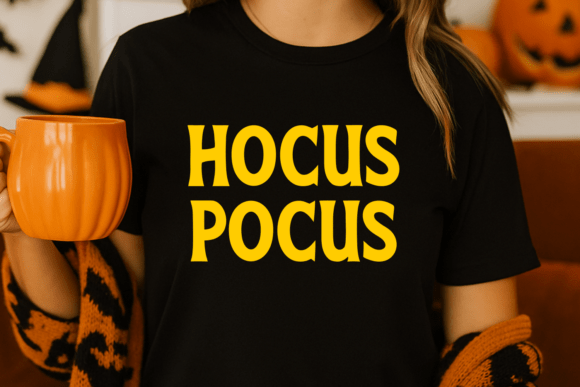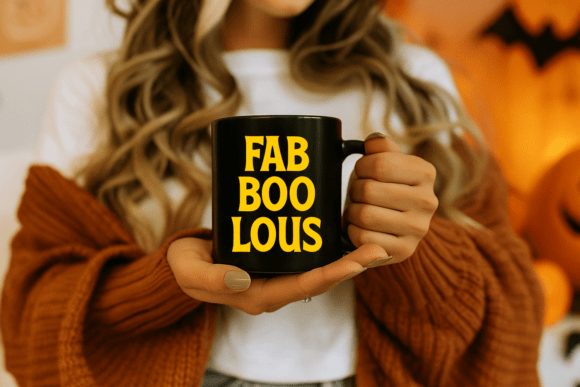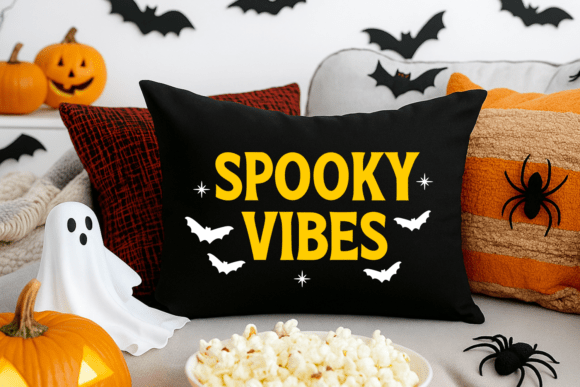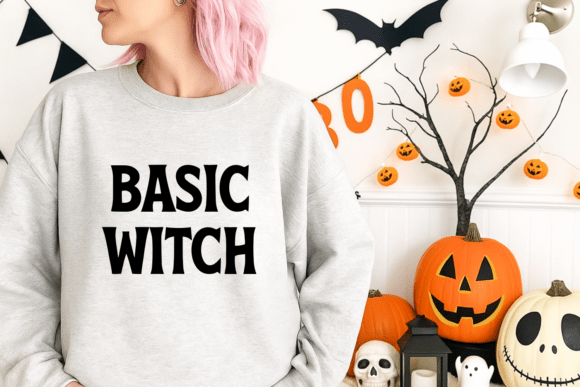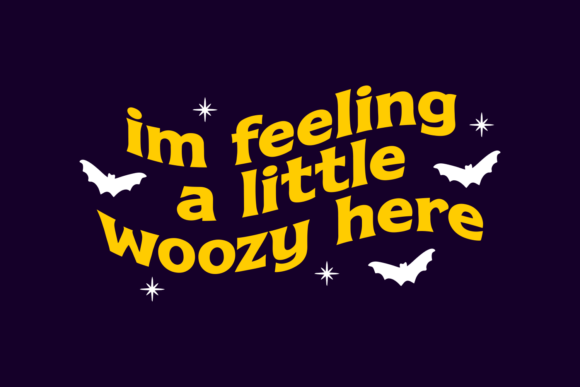
Introduction to Haunted Dracula Font
Get into the spooky spirit with Haunted Dracula, a bold and playful Halloween display font that’s perfect for all your eerie, creepy, and kooky creations.
Inspired by vintage horror movie posters and classic Halloween vibes, this font combines sharp curves with quirky flair, making it ideal for any project that needs a touch of frightful fun Whether you’re designing party invitations, spooky apparel, haunted house signage, or Halloween-themed crafts, Haunted Dracula will cast the perfect spell.
Key Features of Haunted Dracula Font
Why Choose Haunted Dracula Font?